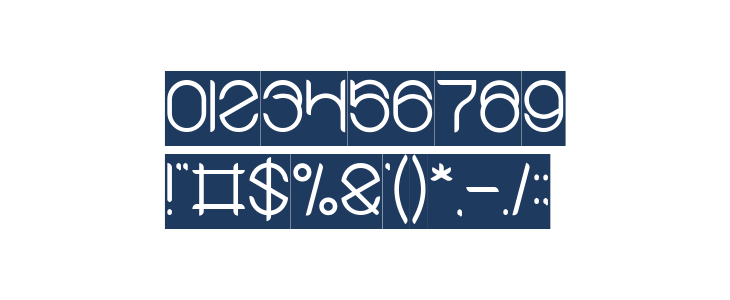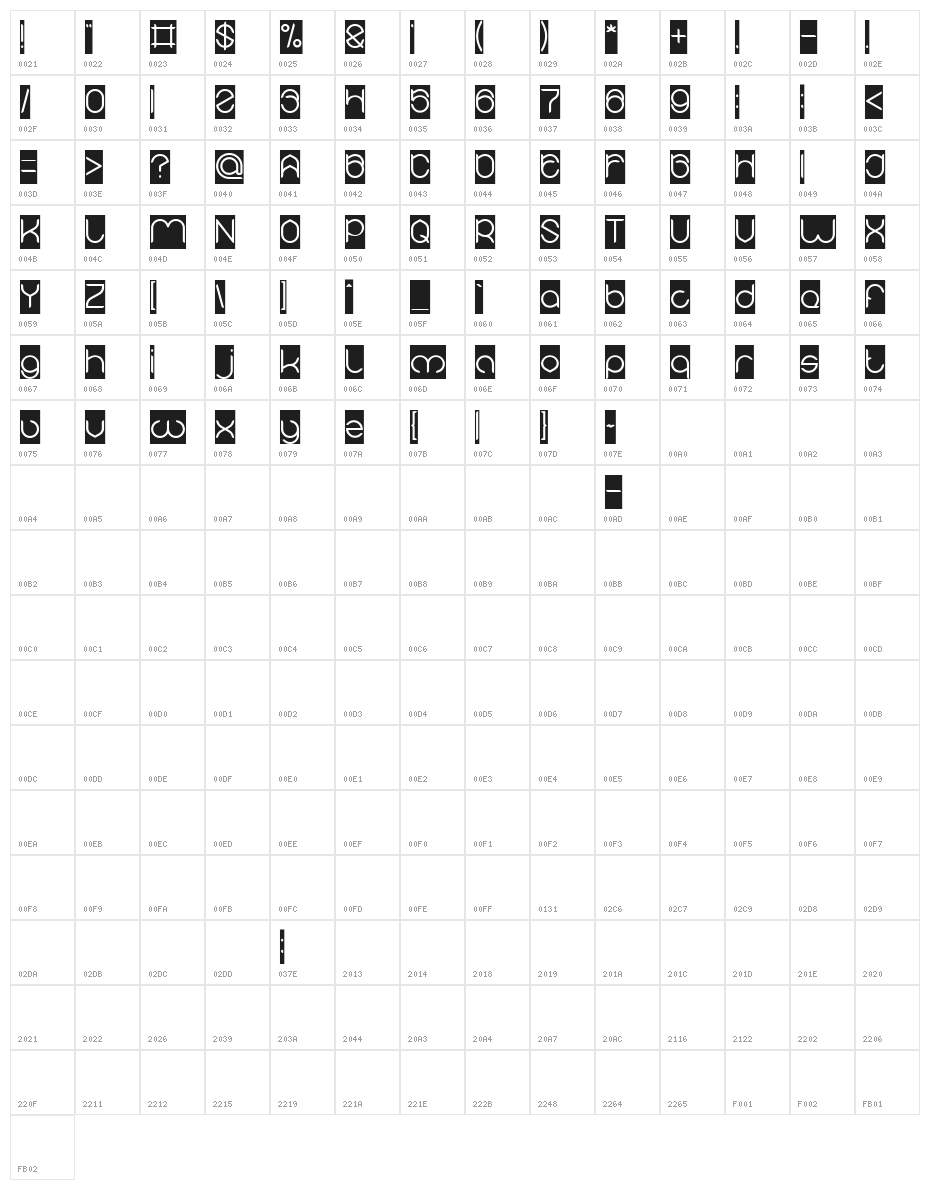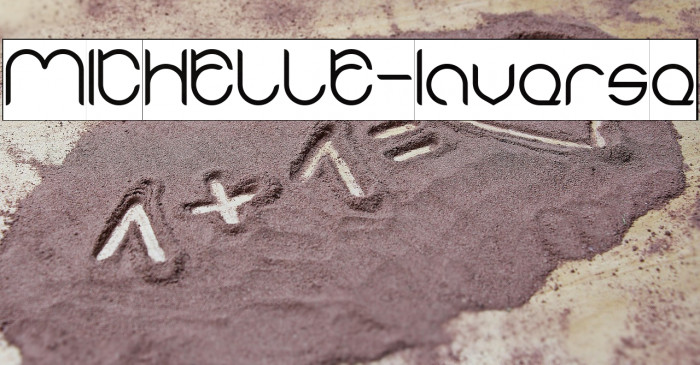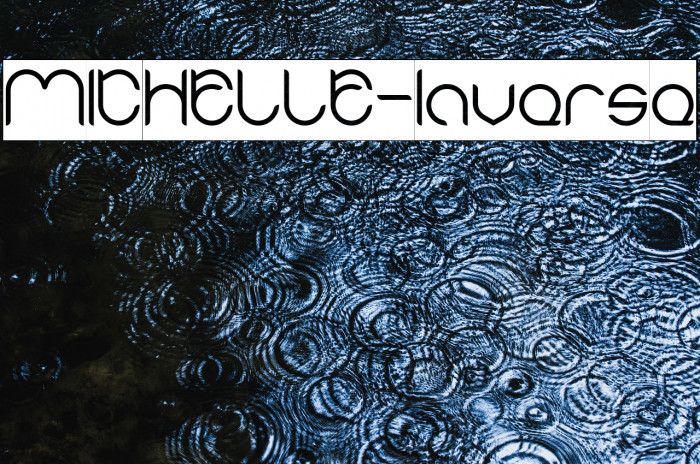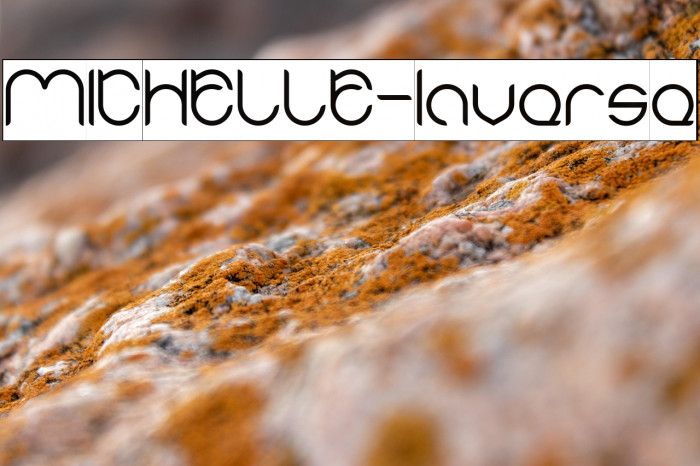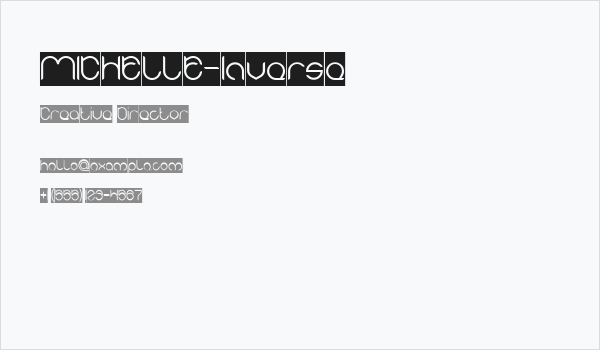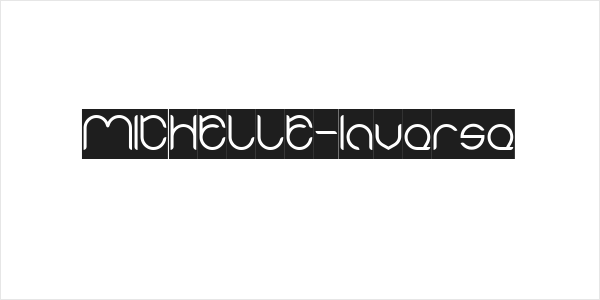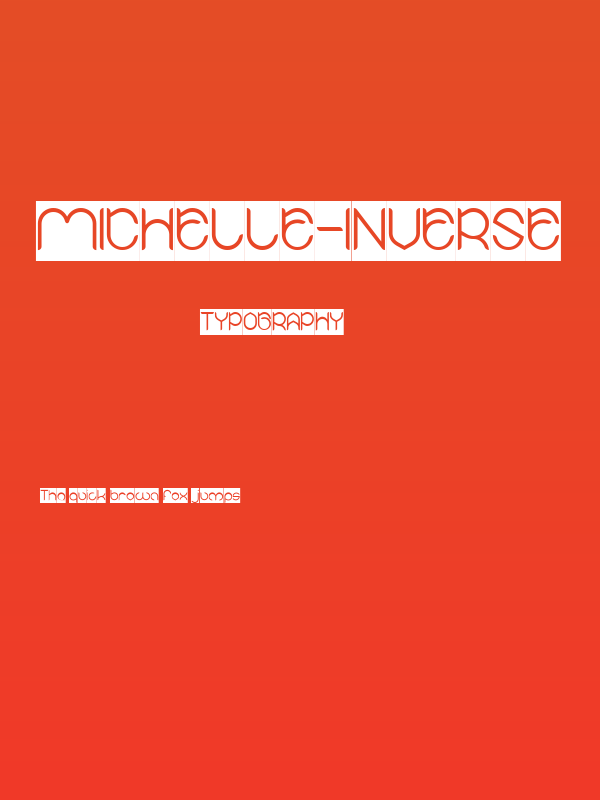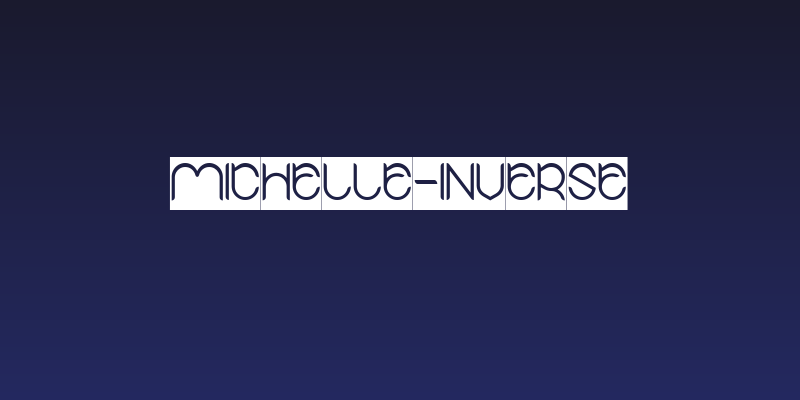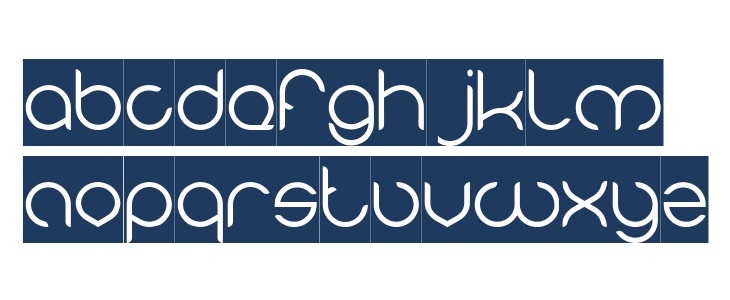
MICHELLE-Inverse Font
MICHELLE-Inverse Description
This font features a unique and modern design with a futuristic flair. The characters are composed of clean, continuous lines that create a sense of fluidity and movement. The uppercase and lowercase letters maintain a consistent style, with rounded edges and a geometric structure. The numbers and special characters are designed to match the overall aesthetic, providing a cohesive look. The font's distinct style makes it stand out, offering a contemporary and innovative appearance that is both eye-catching and versatile.
| Overall Style | Futuristic |
| Use Case | Logos, Headlines, Branding |
| Proposed Projects | Ideal for technology branding, modern art projects, futuristic designs, and innovative product packaging. |